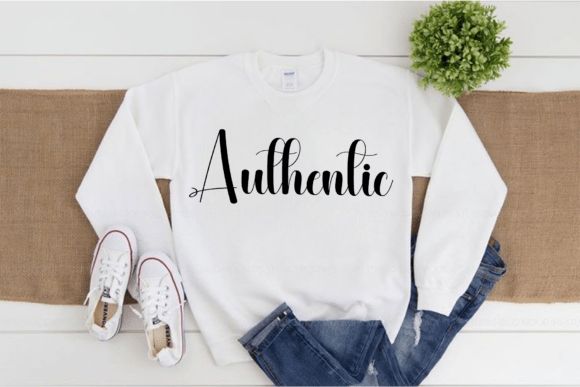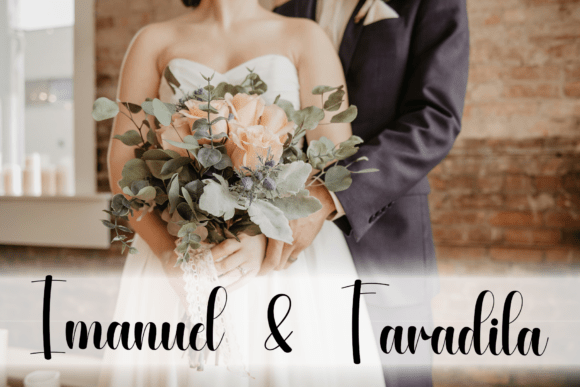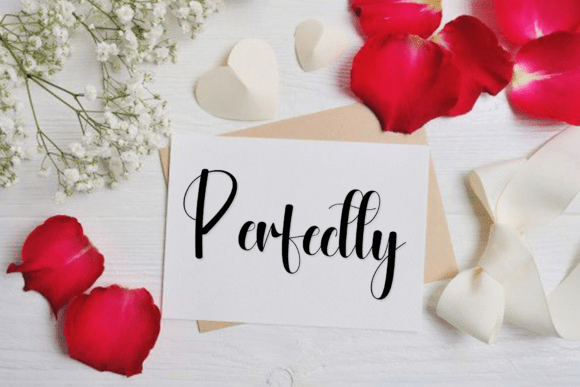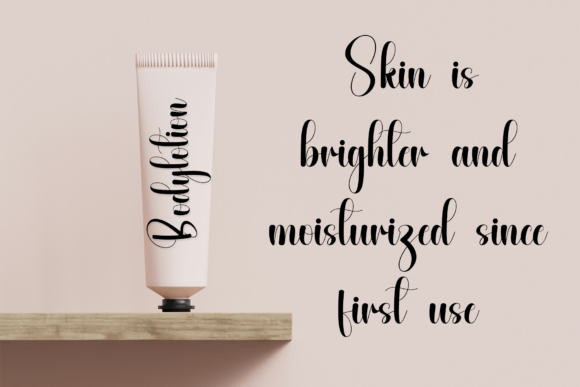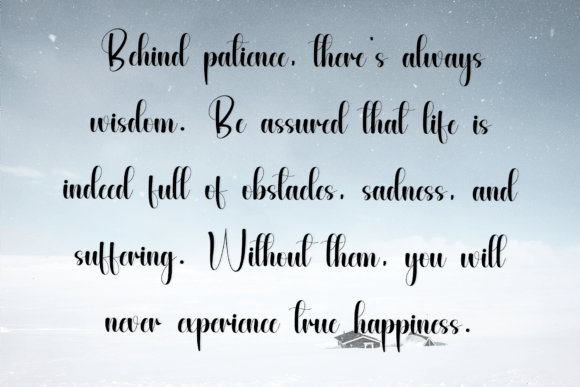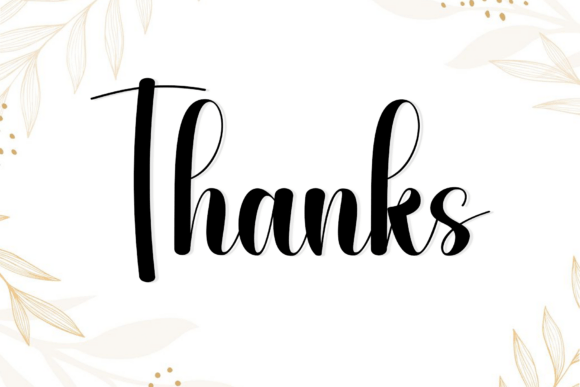
Introducing Alrighty Font: Elevate Your Designs with Elegance and Sophistication
In the world of typography, a well-crafted font can make all the difference in elevating your designs to the next level. If you’re a designer or crafter looking for a typeface that exudes luxury, sophistication, and modernity, look no further than Alrighty Font. This elegant and fluid handwritten script font is perfect for those who want to add a touch of refinement to their creations.
The Essence of Alrighty Font
Alrighty Font is a masterfully designed typeface that captures the essence of a modern, sophisticated script font. Its fluid strokes and elegant letterforms evoke a sense of luxury and refinement, making it an ideal choice for high-end designs. Whether you’re working on luxury wedding stationery, intimate event branding, high-end editorial signatures, or sophisticated lifestyle photography overlays, Alrighty Font is the perfect choice.
Perfect for Luxury Wedding Stationery and Event Branding
Wedding stationery and event branding require a level of sophistication and elegance that Alrighty Font effortlessly provides. Its beautiful, flowing script makes it perfect for:
- Wedding invitations and save-the-date cards
- Event branding and signage
- Wedding menus and programs
- Thank-you cards and stationery
With Alrighty Font, you can create stunning wedding stationery and event branding that will leave a lasting impression on your guests.
Elevate Your Editorial Signatures with Alrighty Font
For editorial designers, Alrighty Font offers a unique opportunity to add a touch of sophistication to high-end editorial signatures. Whether you’re working on a fashion magazine, lifestyle publication, or luxury brand editorial, Alrighty Font is the perfect choice.
Its elegant letterforms and fluid strokes make it perfect for:
- Fashion editorials and articles
- Lifestyle and luxury brand editorials
- Signature blocks and bylines
Sophisticated Lifestyle Photography Overlays
For lifestyle photographers, Alrighty Font offers a beautiful way to add a touch of elegance to your photography overlays. Its sophisticated and modern design makes it perfect for:
- Lifestyle and luxury brand photography
- Fashion and beauty photography
- Wedding and event photography
With Alrighty Font, you can create stunning photography overlays that will elevate your images to the next level.
Why Choose Alrighty Font?
So why choose Alrighty Font over other script fonts? Here are just a few reasons:
- Elegant and sophisticated design: Alrighty Font boasts a beautiful, fluid script that exudes luxury and refinement.
- Versatility: Alrighty Font is perfect for a wide range of design applications, from wedding stationery to editorial signatures.
In conclusion, Alrighty Font is a stunning script font that offers a level of elegance and sophistication that’s hard to find in other typefaces. Its fluid strokes, elegant letterforms, and modern design make it perfect for luxury wedding stationery, intimate event branding, high-end editorial signatures, and sophisticated lifestyle photography overlays. If you’re looking to elevate your designs to the next level, Alrighty Font is the perfect choice.